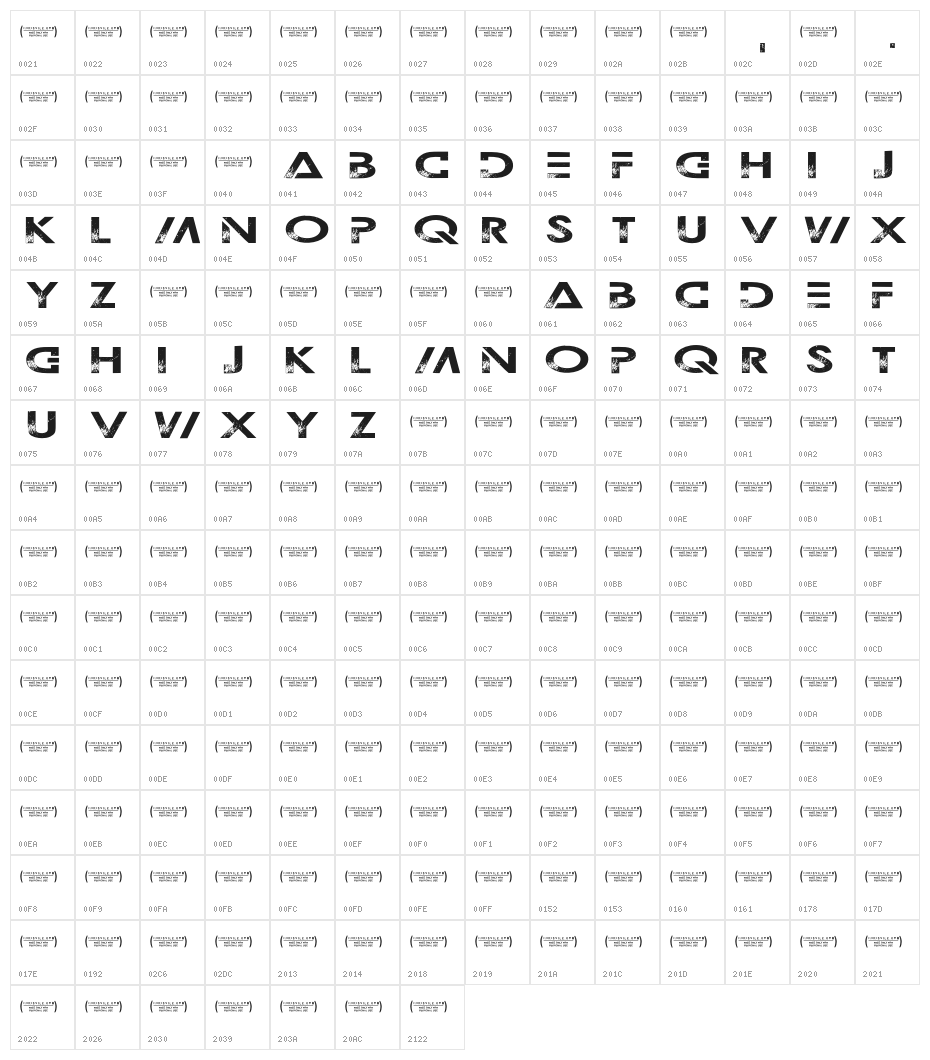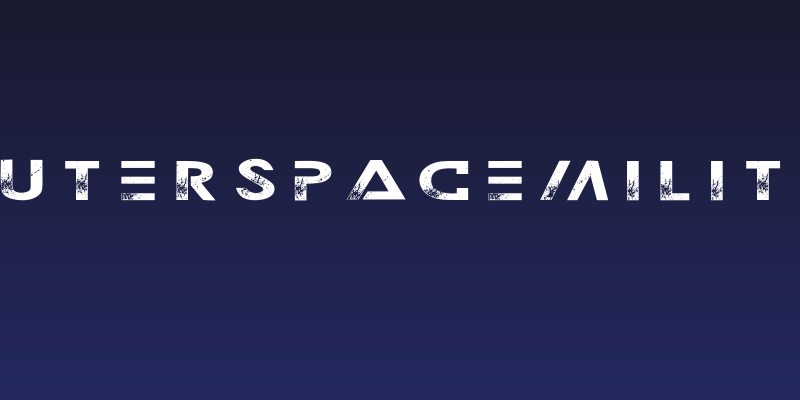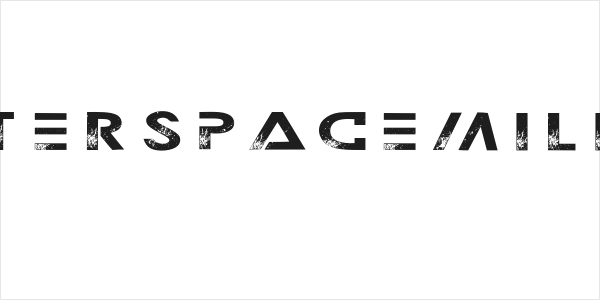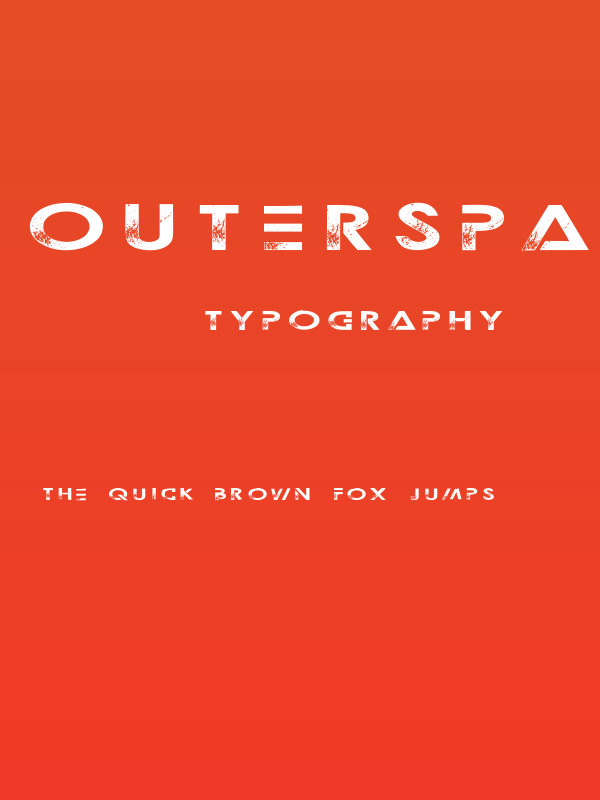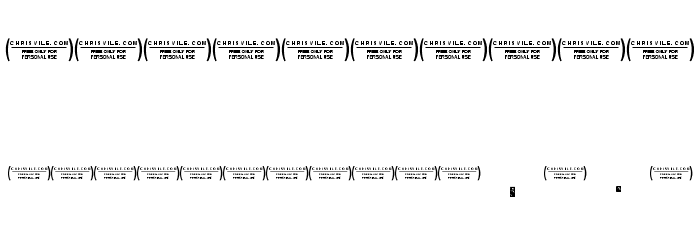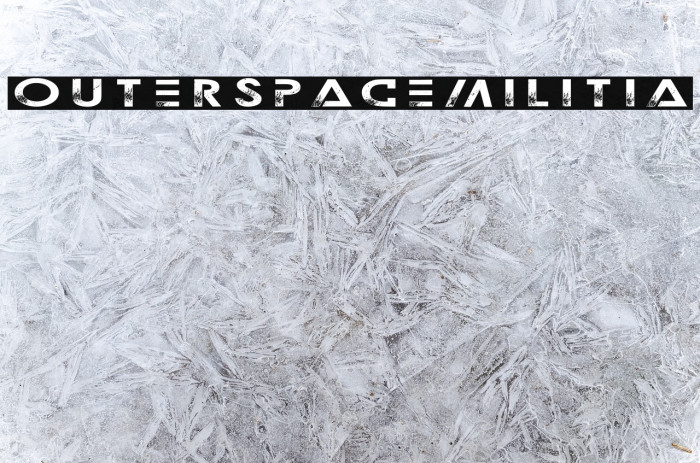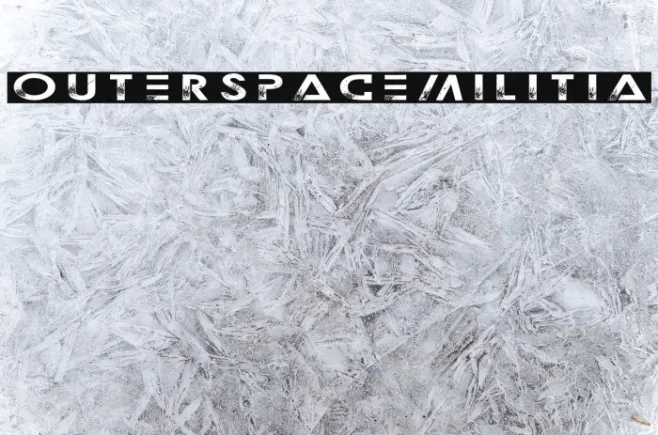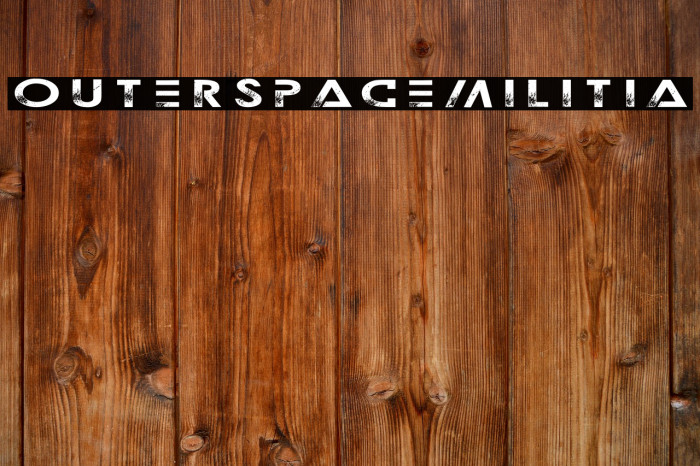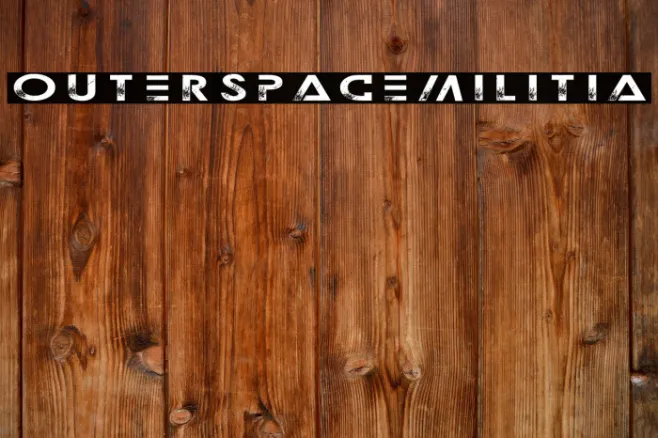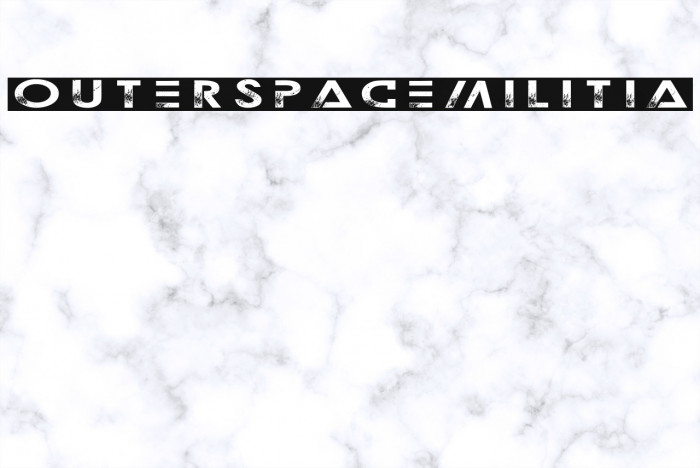
OuterspaceMilitia Font
OuterspaceMilitia Description
This font exhibits a bold, futuristic style with a distressed texture, giving it a rugged and edgy appearance. The characters are angular and geometric, with sharp edges and a stencil-like quality. The uppercase letters are particularly striking, with a uniform height and consistent spacing. The distressed effect adds a layer of depth and character, making it suitable for designs that require a gritty or industrial feel. The font maintains a consistent weight throughout, ensuring readability while still offering a unique visual impact.
| Proposed Projects | Ideal for sci-fi themed posters, video game titles, branding for tech companies, or any project requiring a modern, edgy look. |